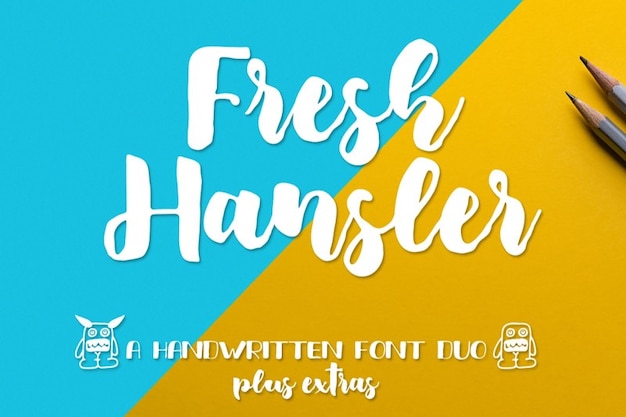
Fresh Hansler
Fresh Hansler Font
Fresh Hansler font is a bold take on handwritten calligraphy—it's like calligraphy on steroids! Each stroke boasts confidence, delivering a punchy and bold statement. With its handwritten flair, it adds a vibrant, energetic vibe to your designs. It's the font that speaks loudly in style, combining the elegance of calligraphy with an assertive, bold presence.